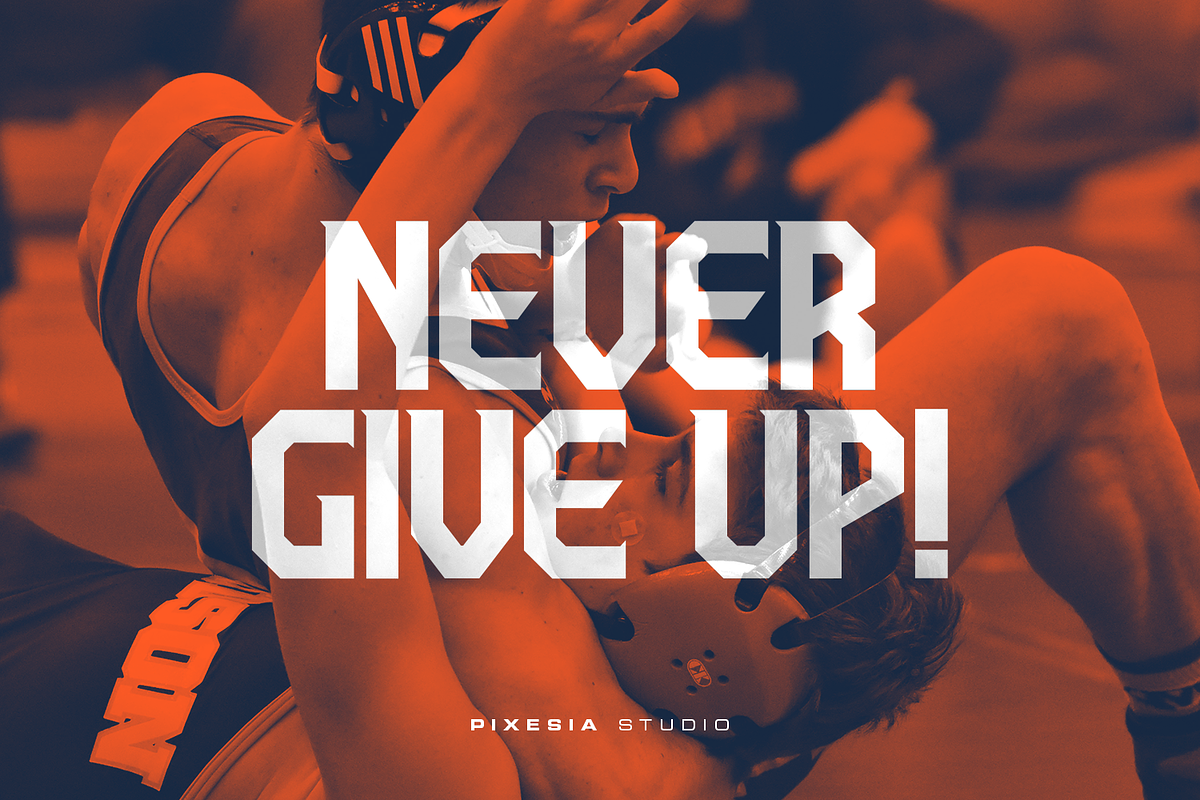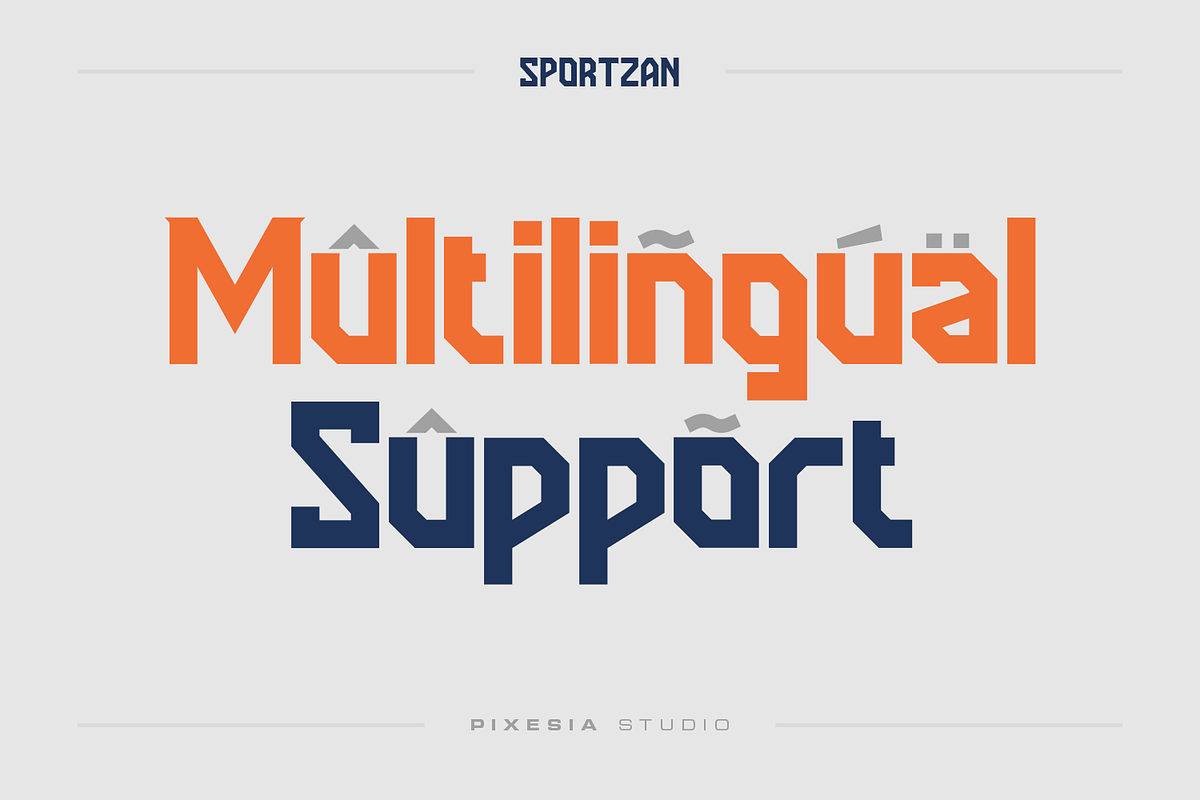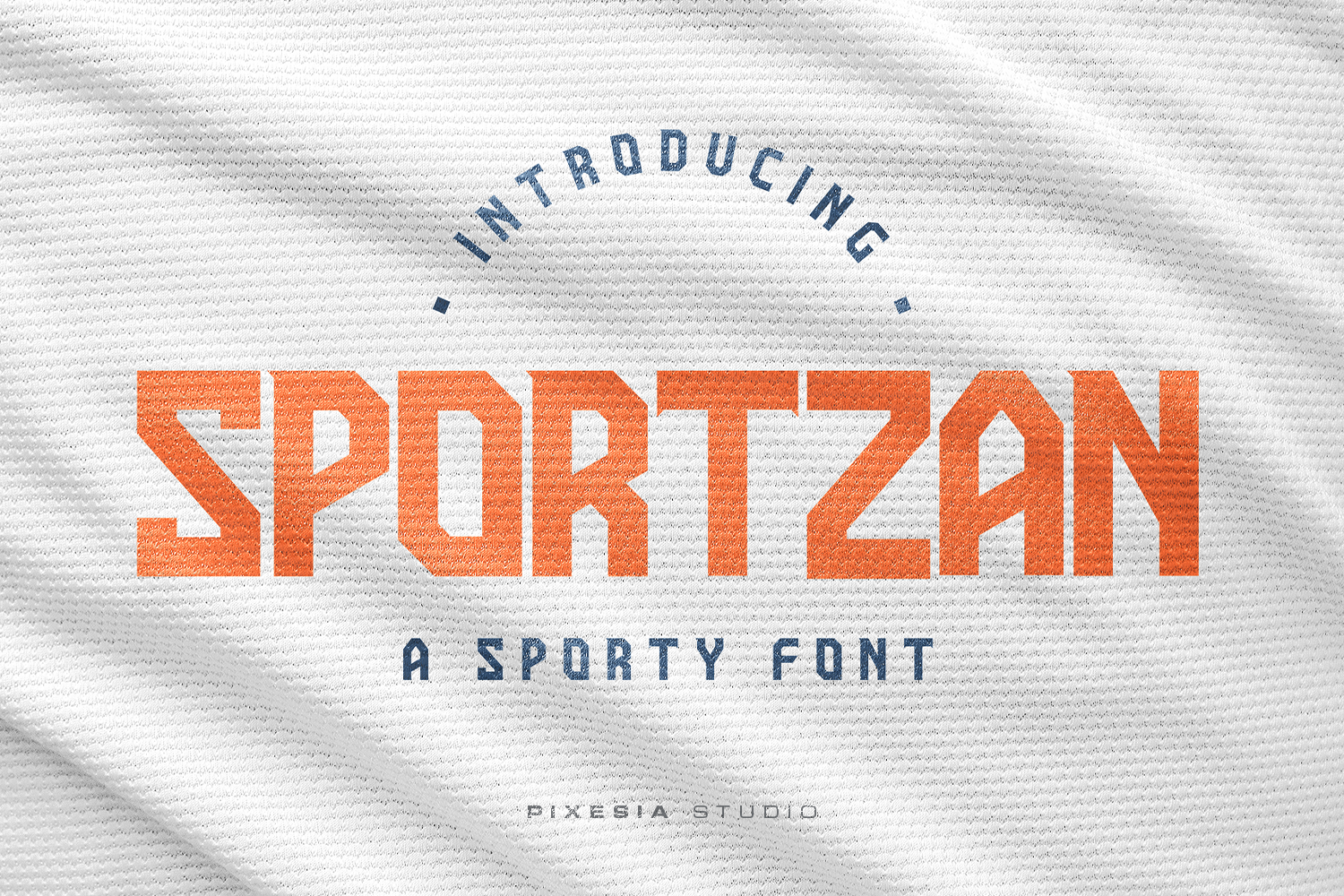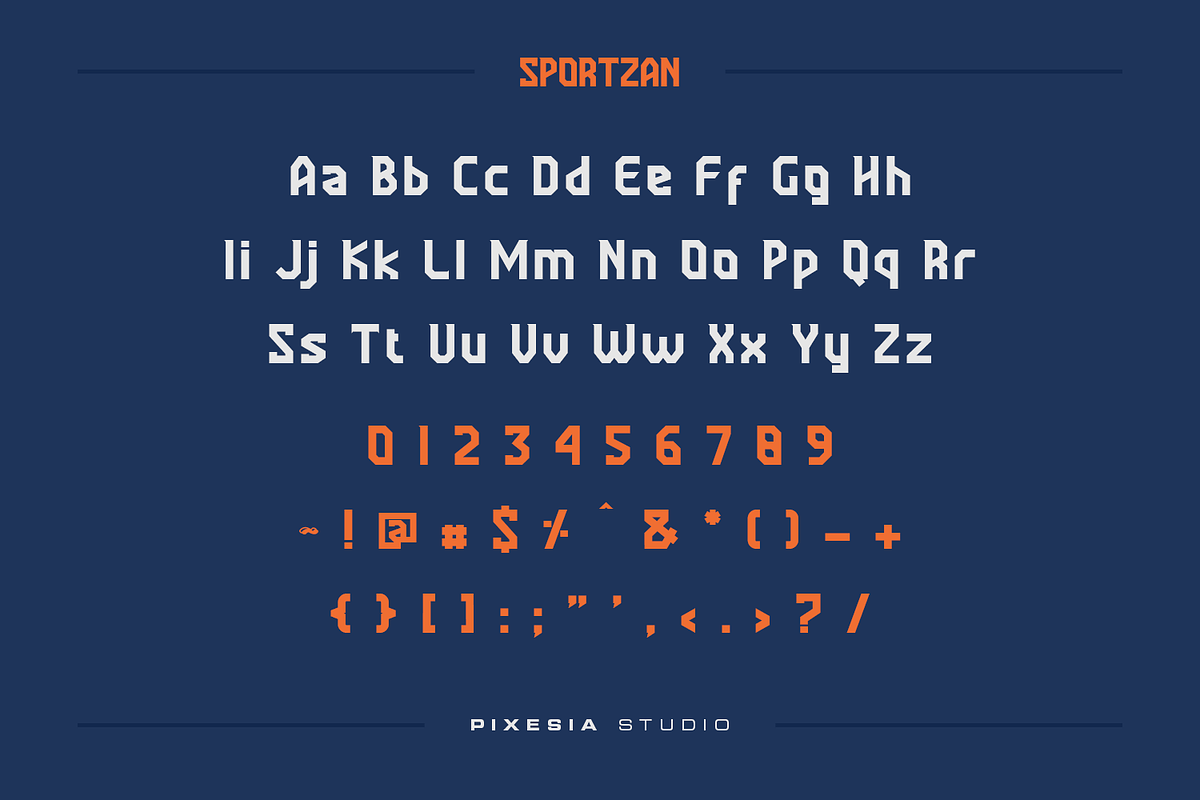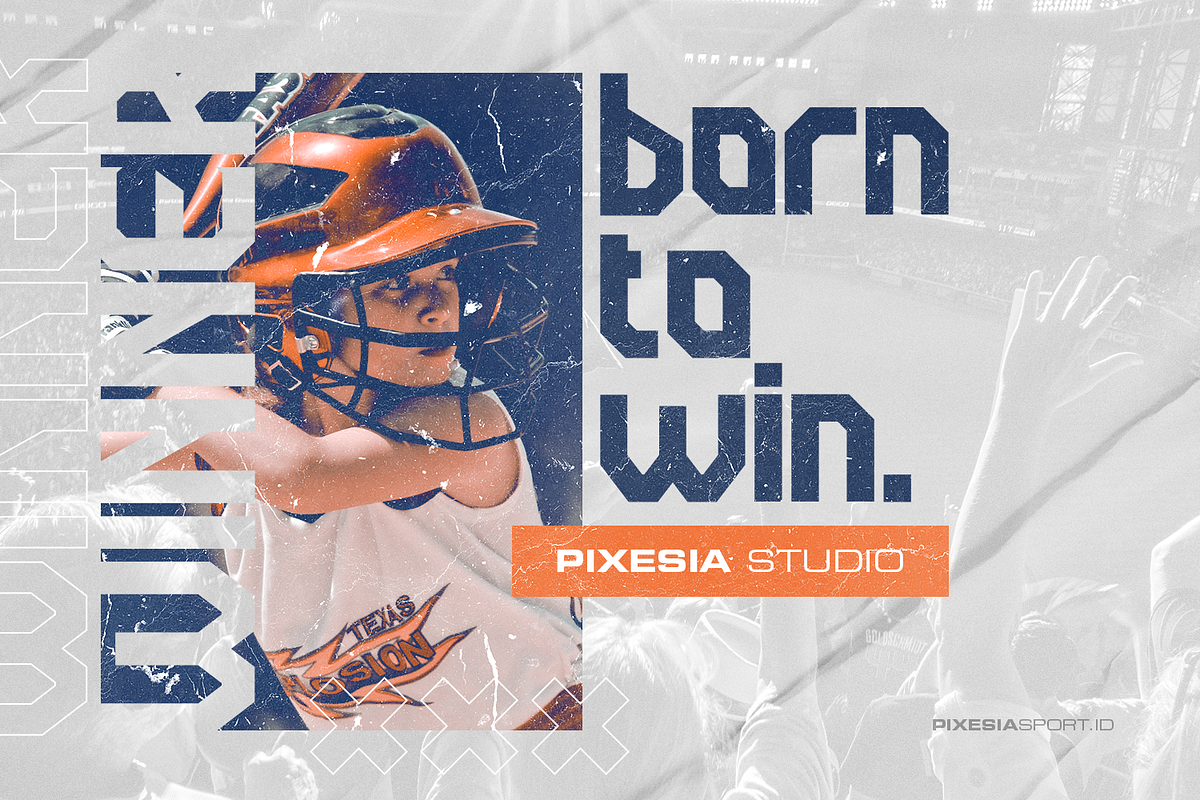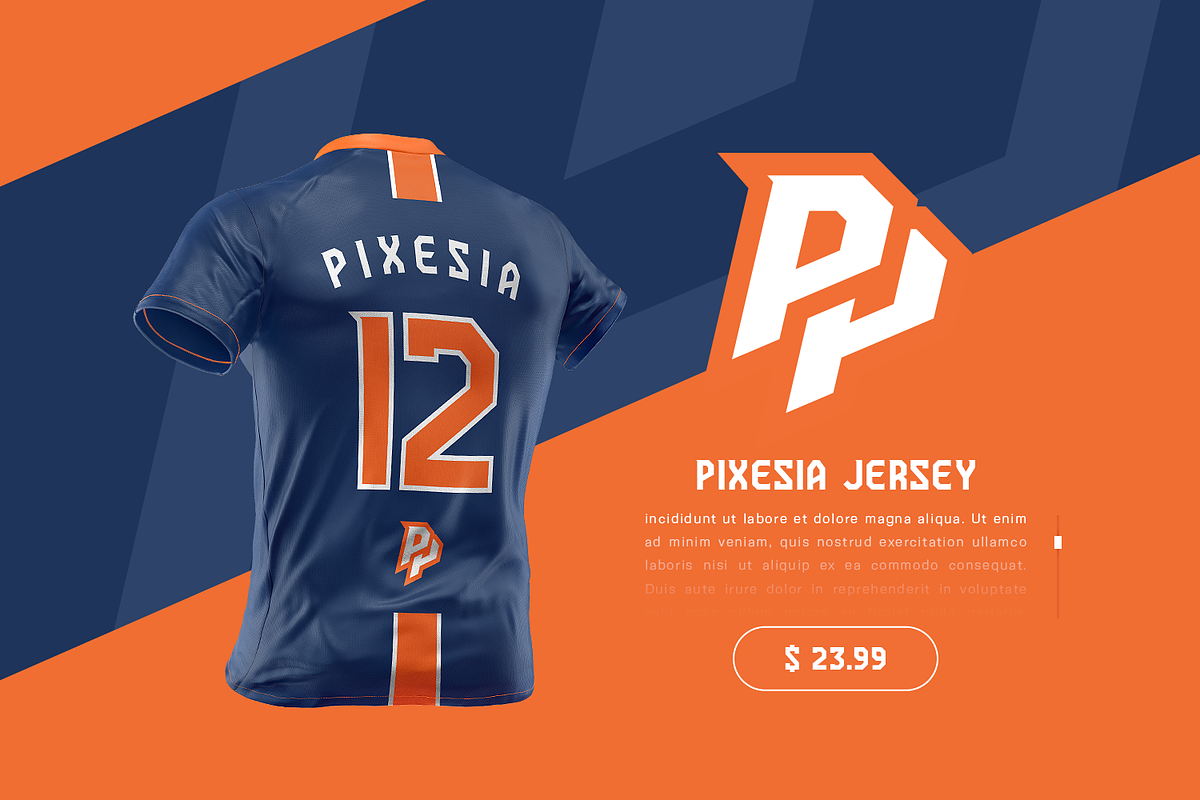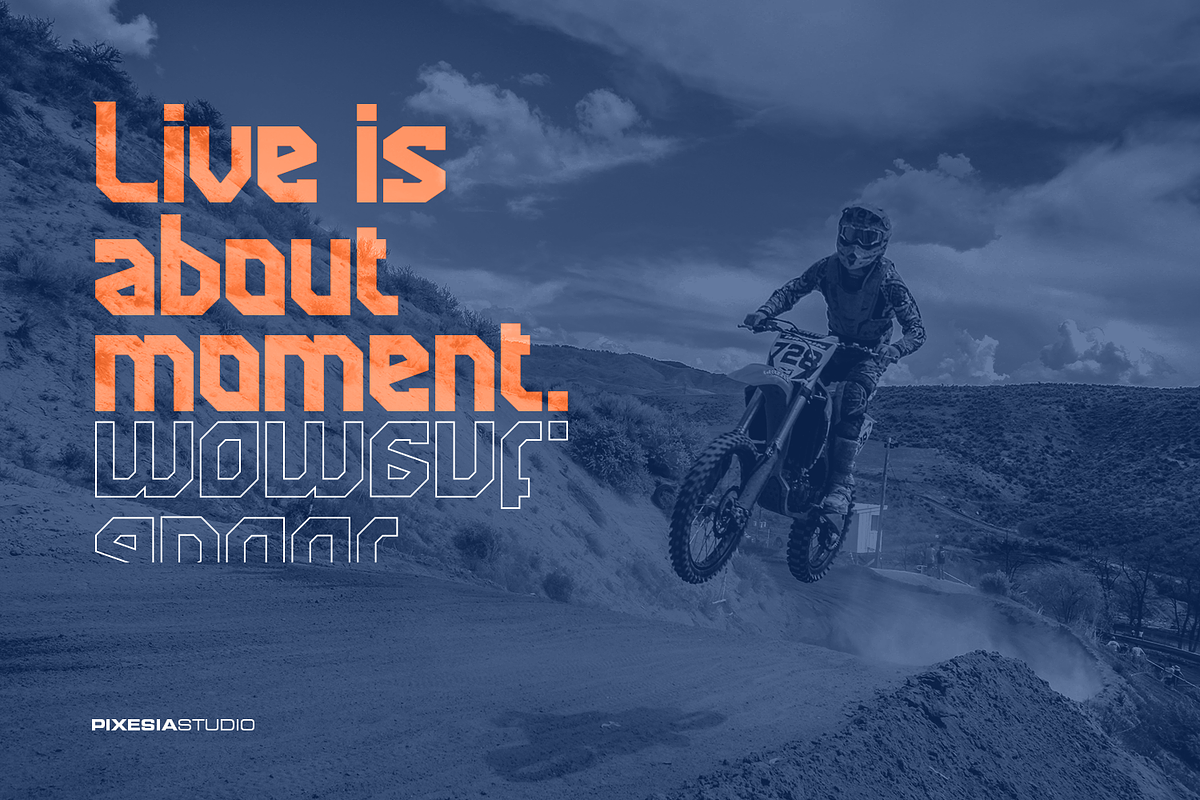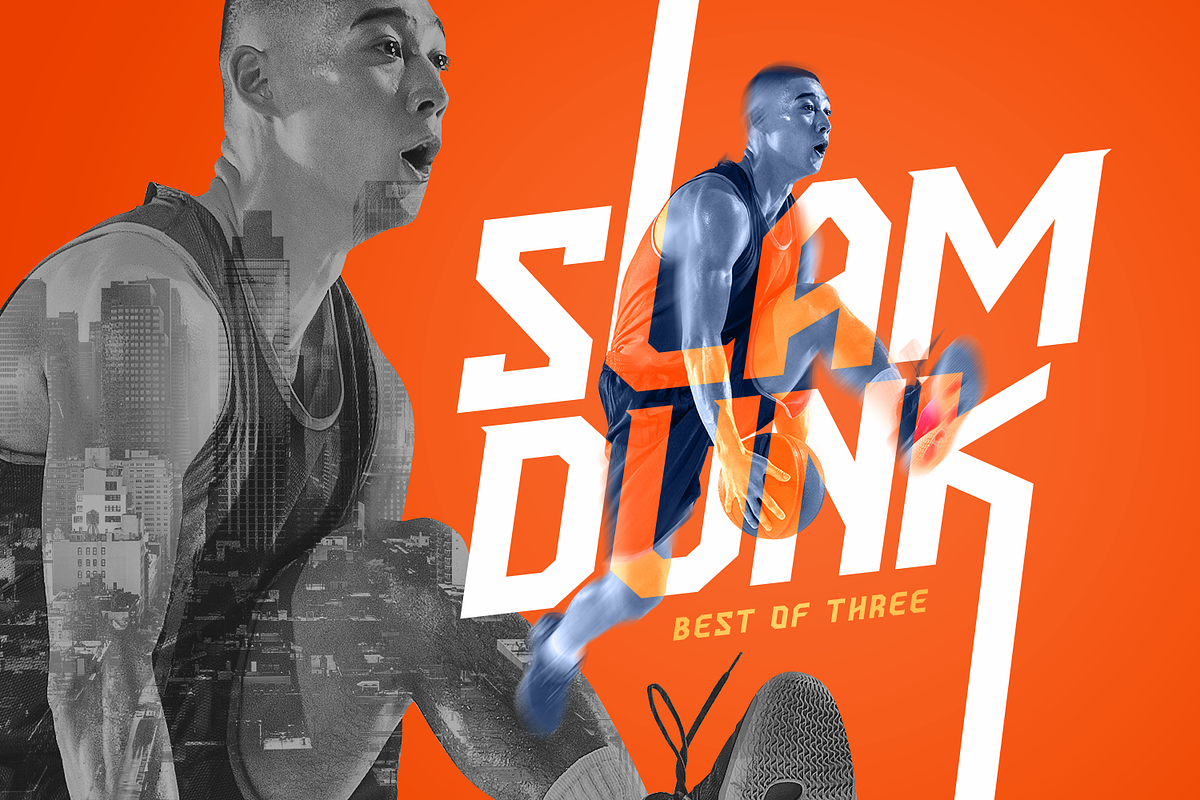
Sportzan - A Sporty Display Font
Introducing Sportzan - A Sporty Display Font
Sportzan, as its name, is a sport font. Sportzan brings you the kind of cheerful and sporty vibes which spreads the playful energy for the game. Sportzan is designed to have sharp-corners to express the strength. With its bold design, sportzan will be suitable to be associated to any kind of sport product such as poster, jersey design, sport-slogan, and any writing which needs a strong-bold vibe.